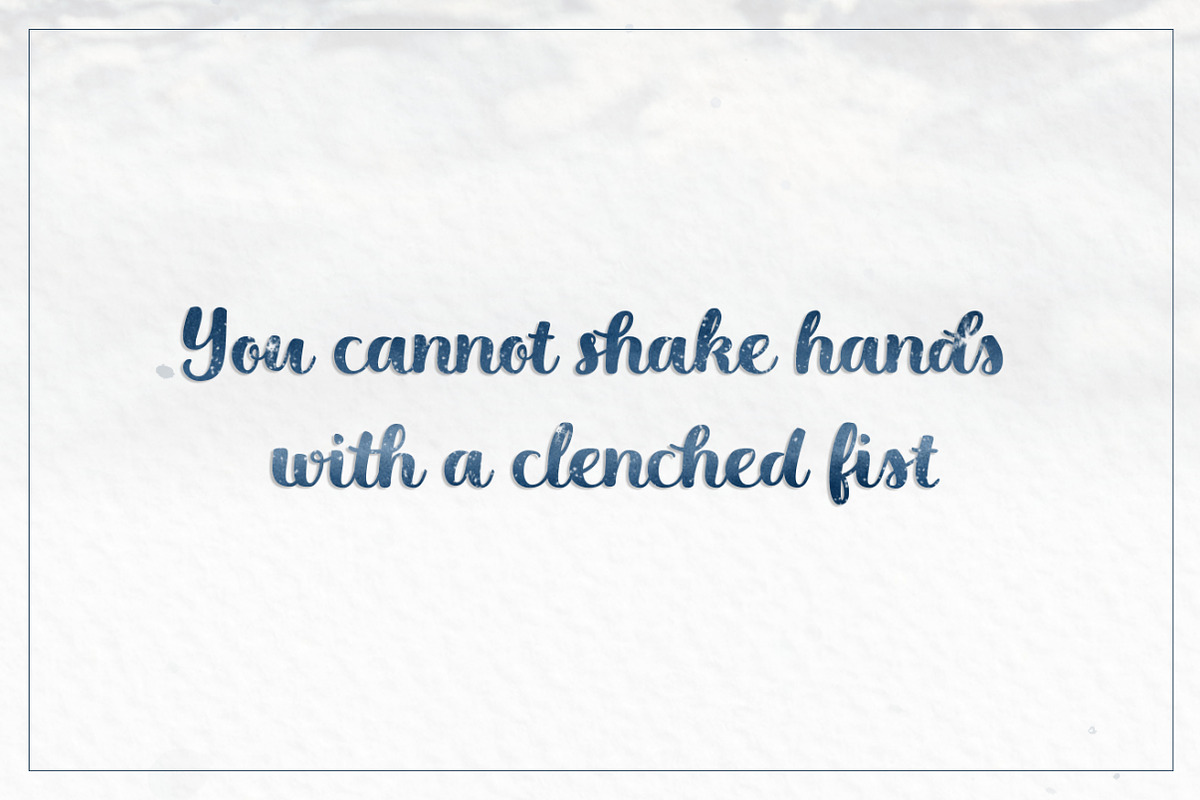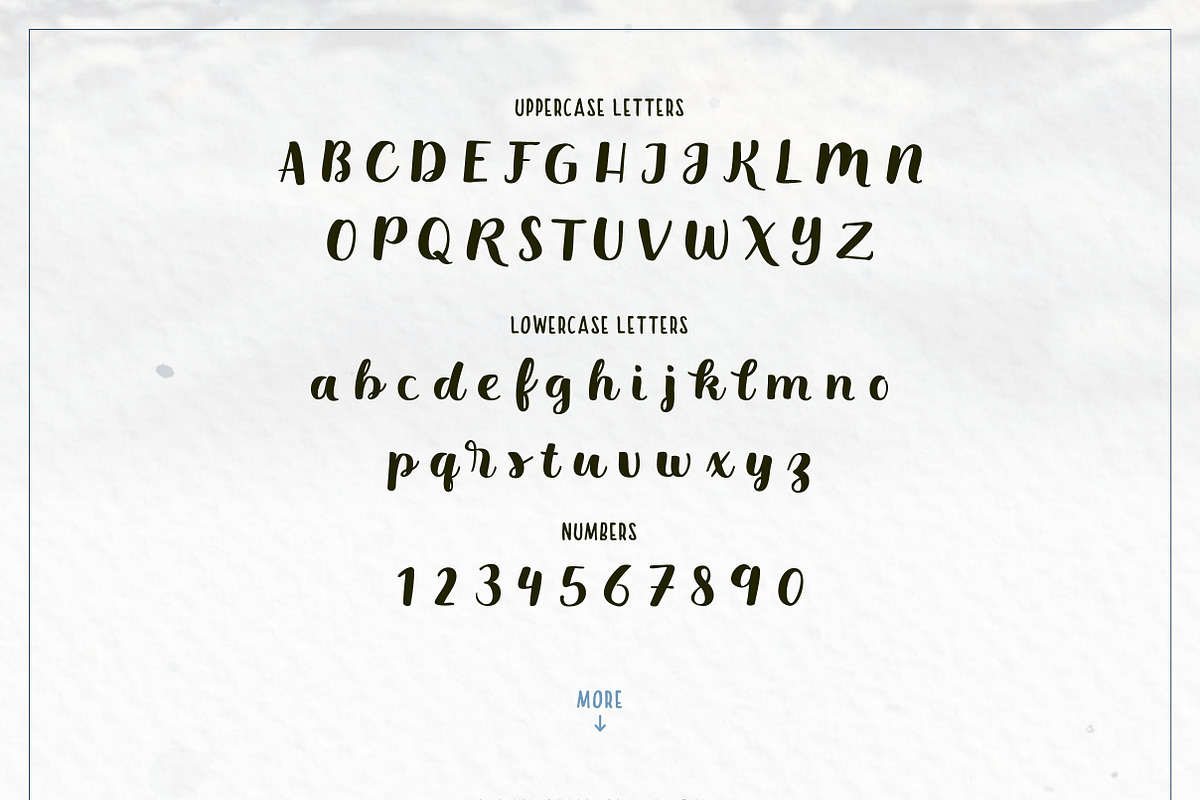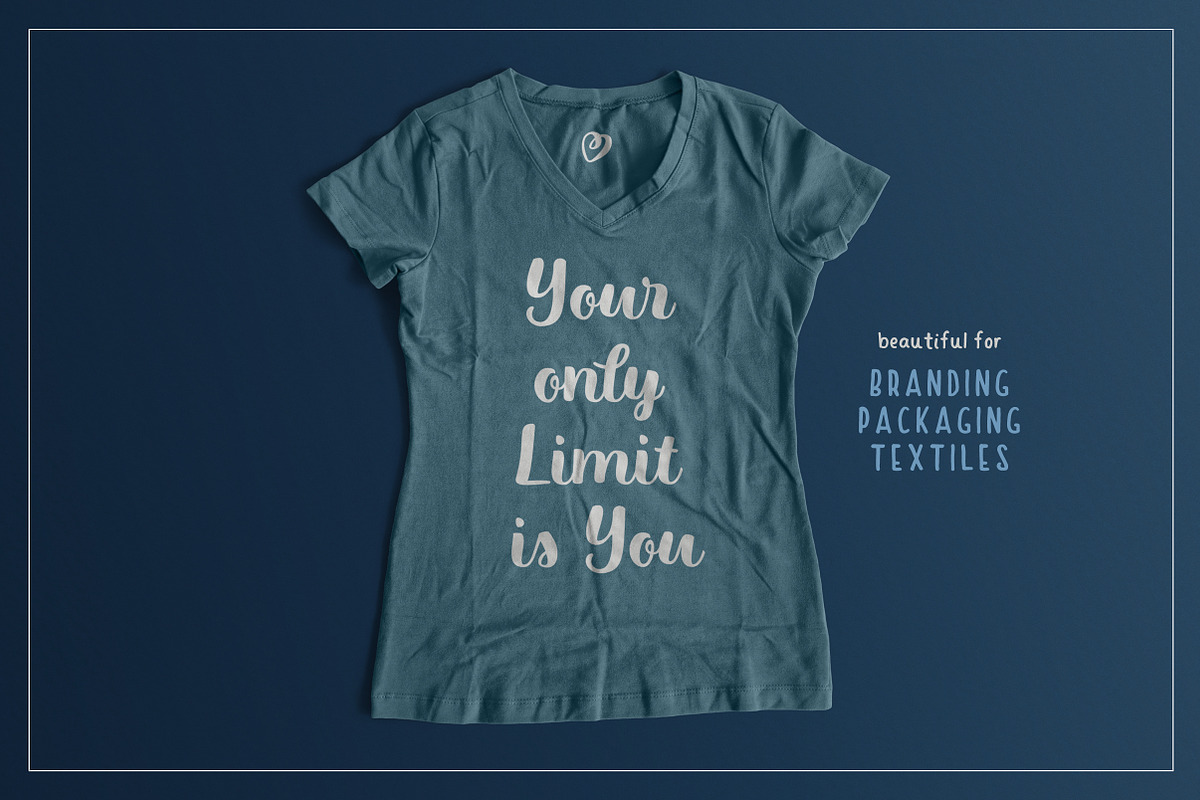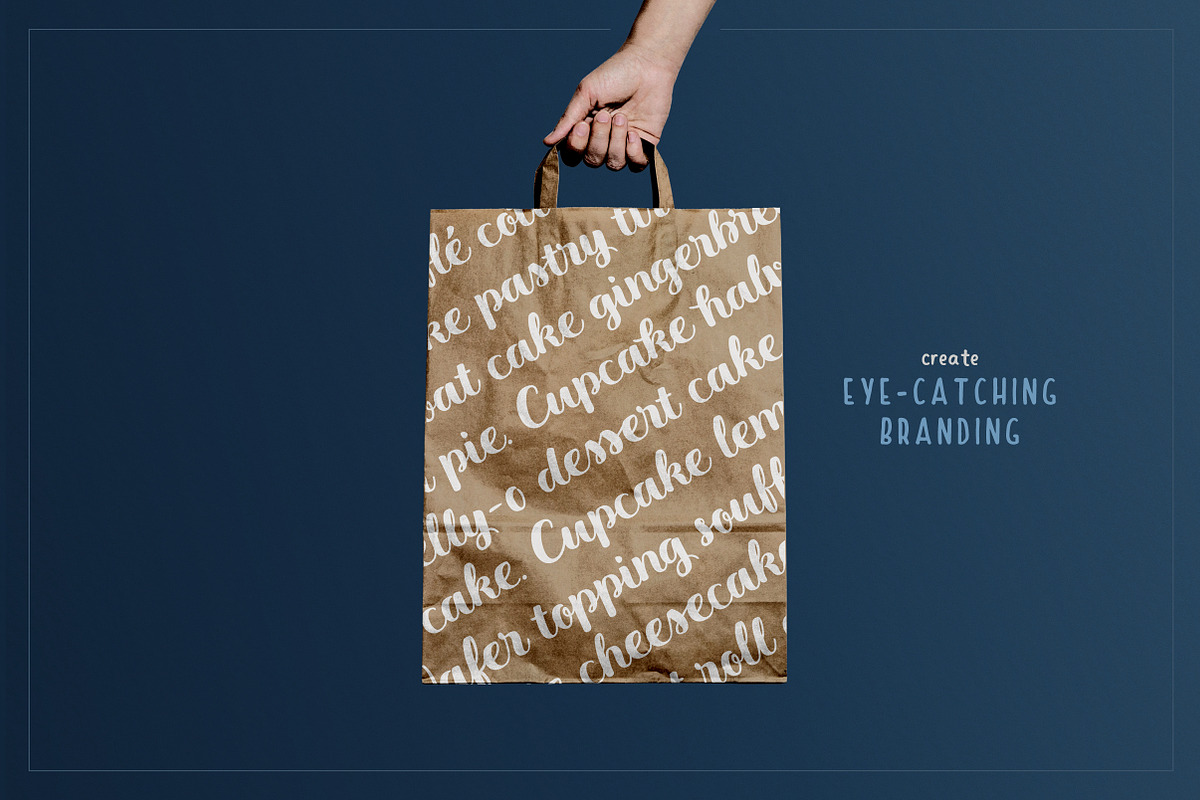
Little Duckling Hand Made Font
Little Duckling Hand Made Font by Winterbird is a font selected for branding, posters, packaging, typography.
- Uppercase and lowercase Letters
- Stylistic alternatives
- Variety of entrance and exit strokes
Why Little Duckling Hand Made Font is worth a look
Little Duckling Hand Made Font by Winterbird fits naturally into Branding, posters, packaging, typography.